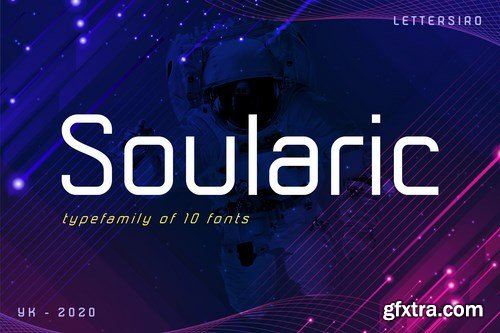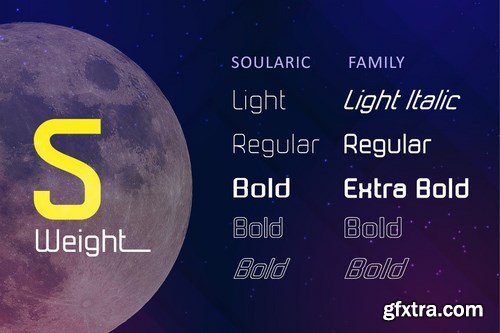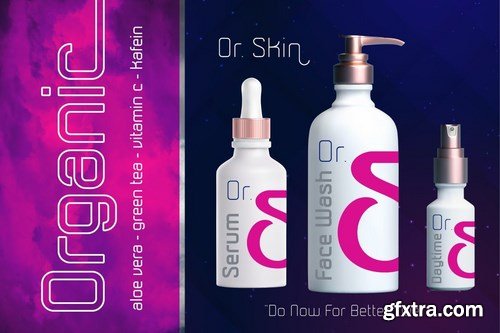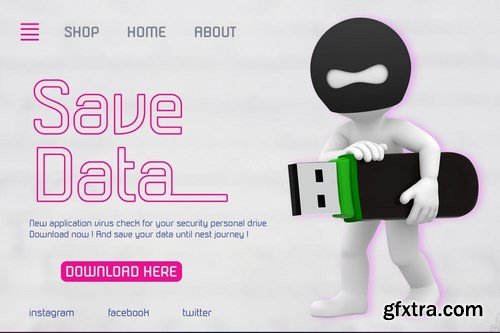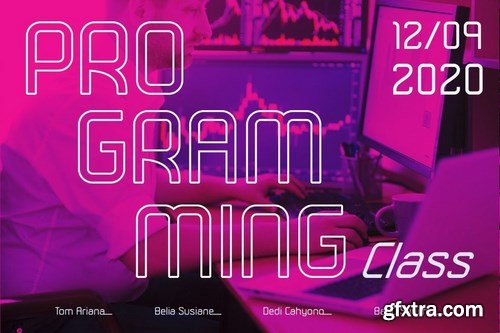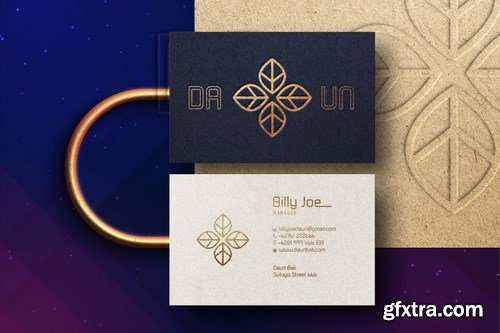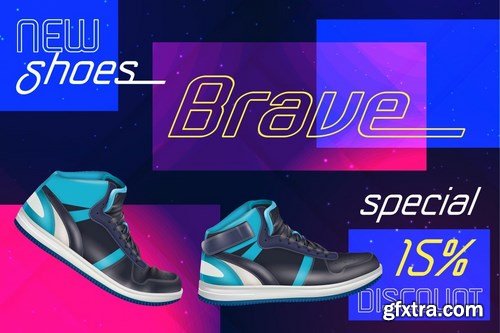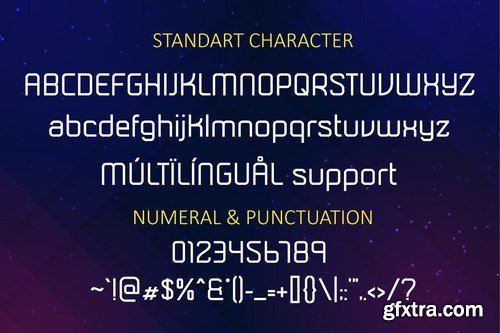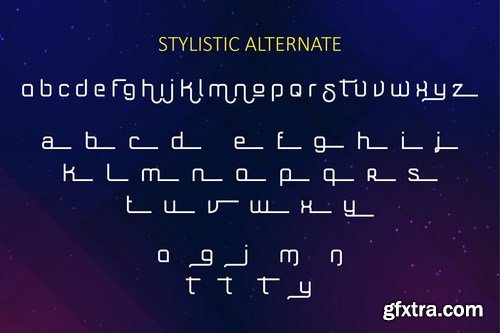
Looking for futuristic font family ? here the solaric font. This font bring your future imagination in your design porject. Never waste your time by looking other futuristic font.